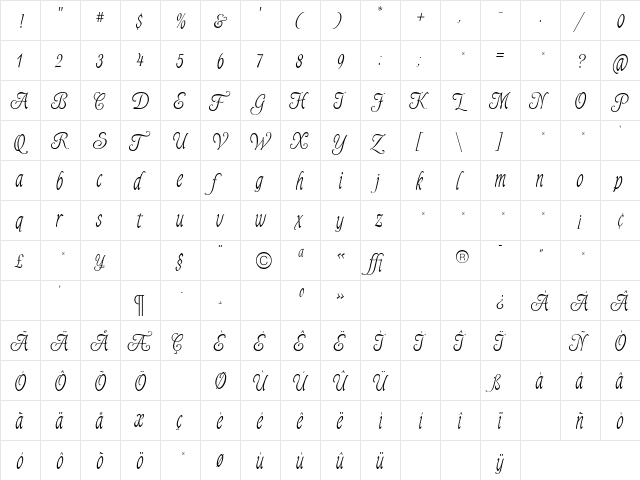
Alys Script Light Regular
Design Context for Alys Script Light Typeface
Alys Script Light flows with the natural rhythm of handwritten lettering, making it ideal for designs that call for warmth and personal expression. Its slender proportions lend an understated elegance to any composition.
Font Pairing: Combine Alys Script Light with a simple geometric sans for maximum contrast — the tension between flowing curves and clean structure is a classic typographic pairing.
Pro Tip: Use Alys Script Light for short runs of text — names, titles, or taglines. Extended body copy in script faces tires the eye quickly.